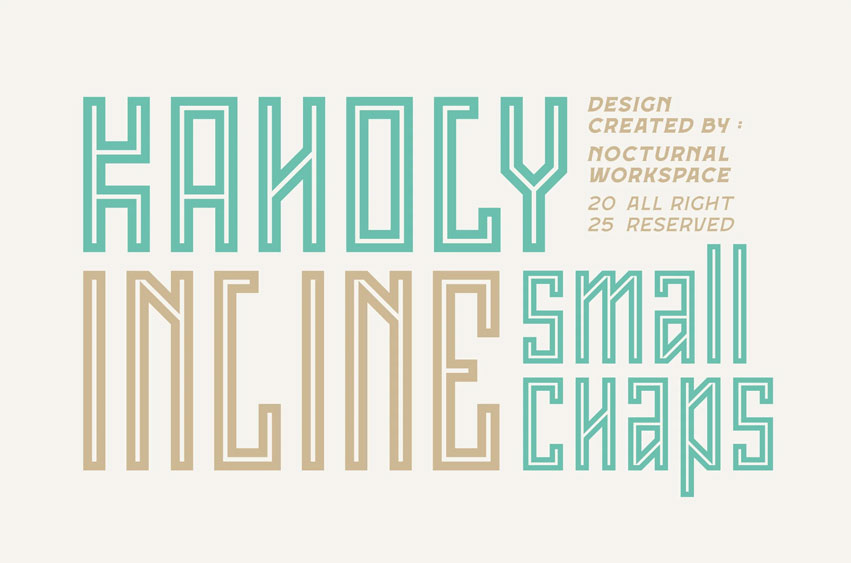
The Kaholy Inline Font
The Kaholy Inline Font Black Condensed Font is a suitable typeface for various purposes like logotypes, signage, labels, posters, dropcaps, titles, letterhead, book covers, etc.
• Features: Small-Caps, Salt, Calt.
• Includes a range of multilingual characters.